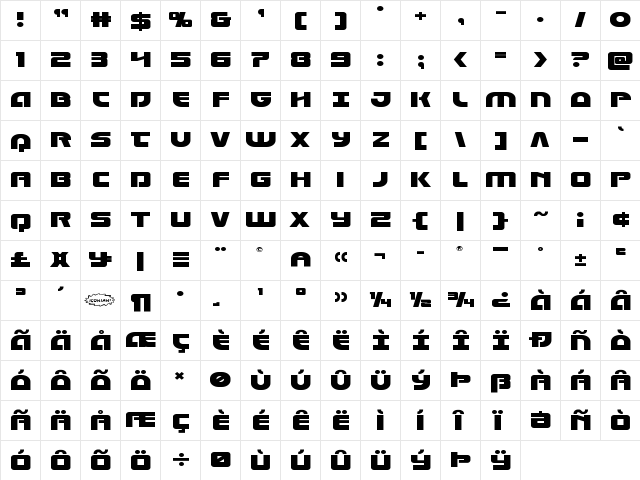
Laser Corps Expanded Regular
Design Context for Laser Corps Expanded Typeface
Laser Corps Expanded is a composed and adaptable typeface that performs quietly and consistently across a wide range of design contexts.